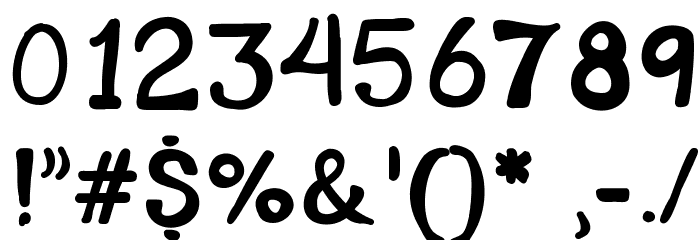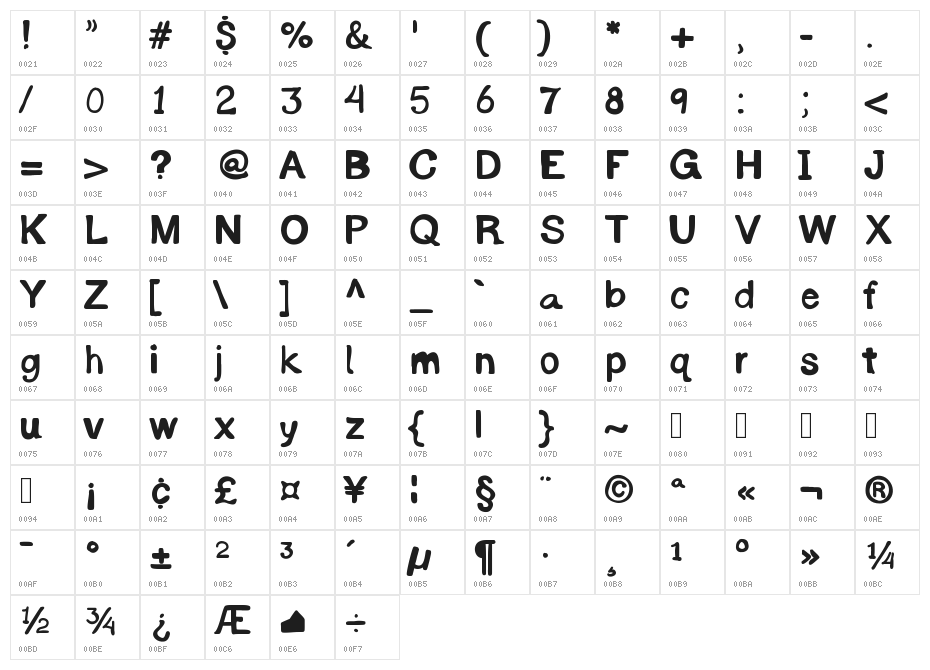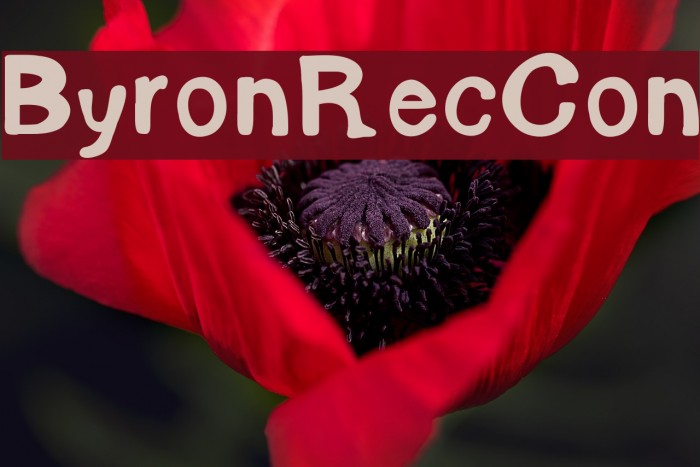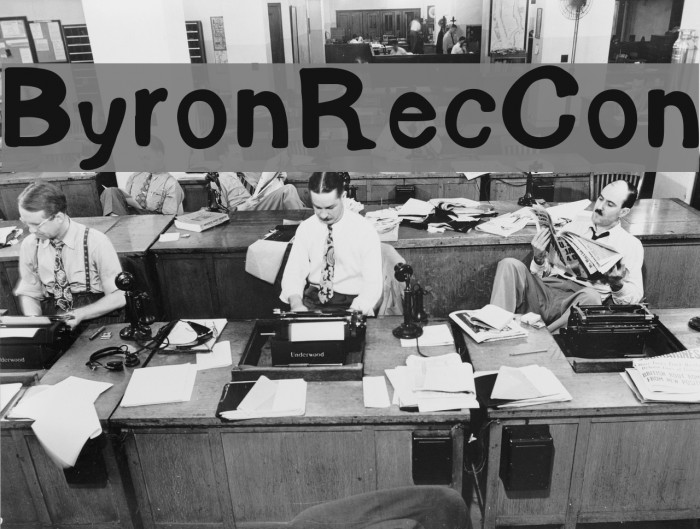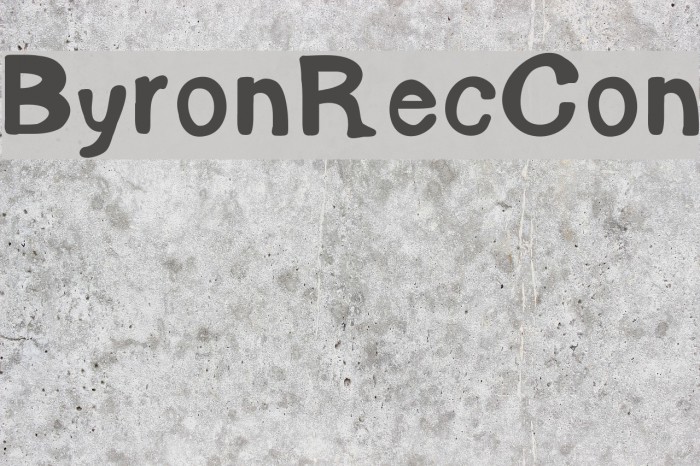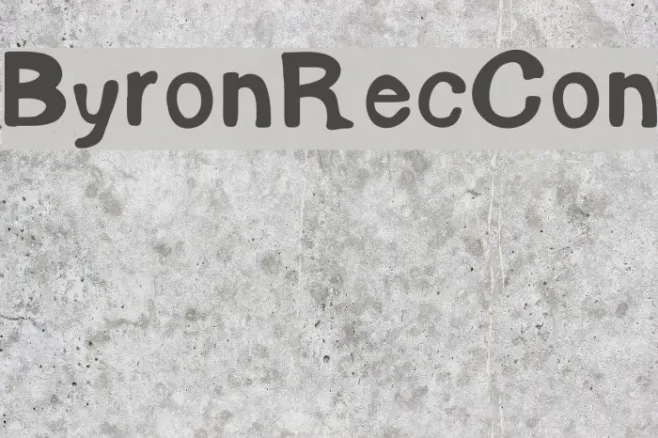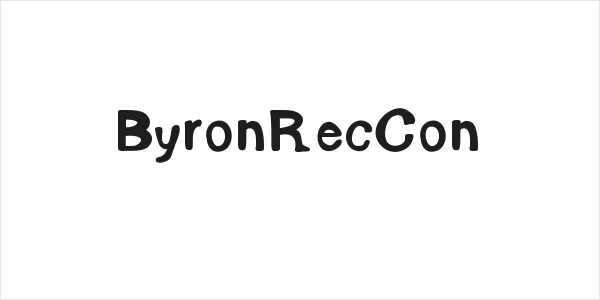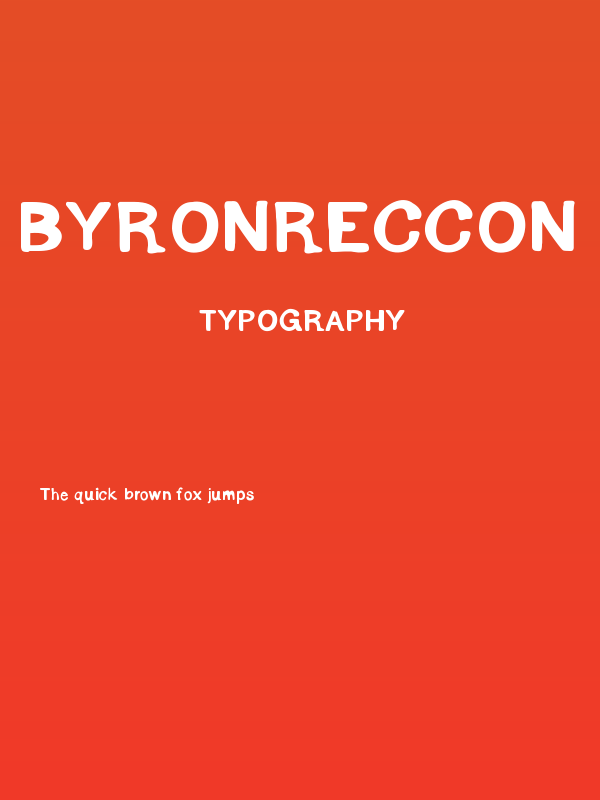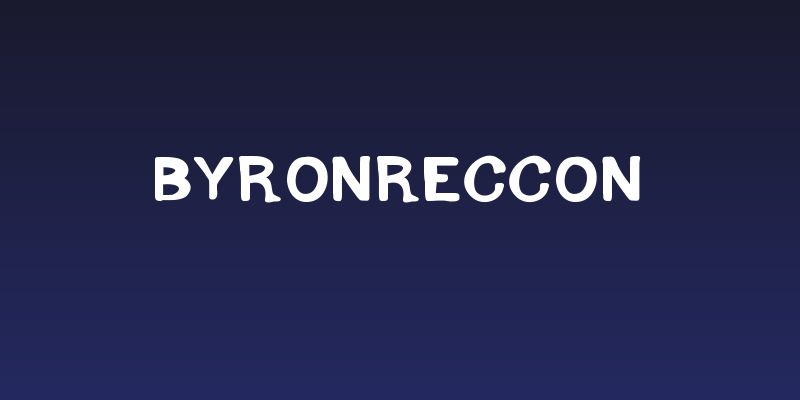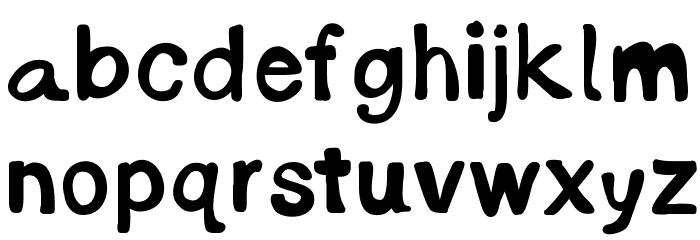
ByronRecCon Font
ByronRecCon Description
This font features a playful and bold style with rounded edges and a hand-drawn appearance. The letters are slightly irregular, giving it a whimsical and casual feel. The uppercase and lowercase letters maintain a consistent style, with the lowercase letters being slightly smaller and more rounded. The numbers and special characters follow the same playful aesthetic, making the font suitable for informal and creative projects. Its boldness ensures readability, while the unique character shapes add personality and charm.
| Proposed Projects | Ideal for children's books, playful branding, casual invitations, and creative posters. |